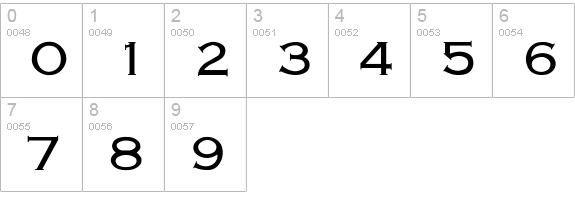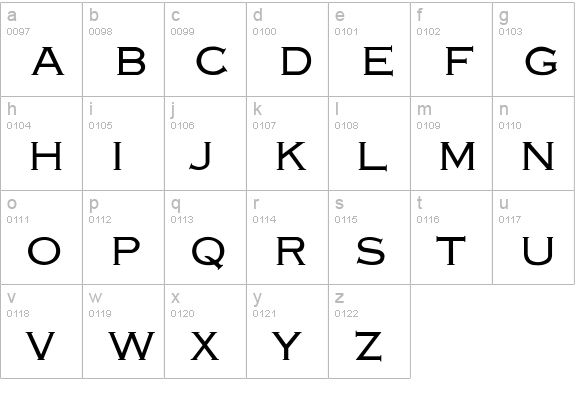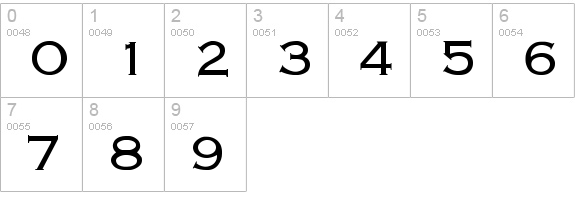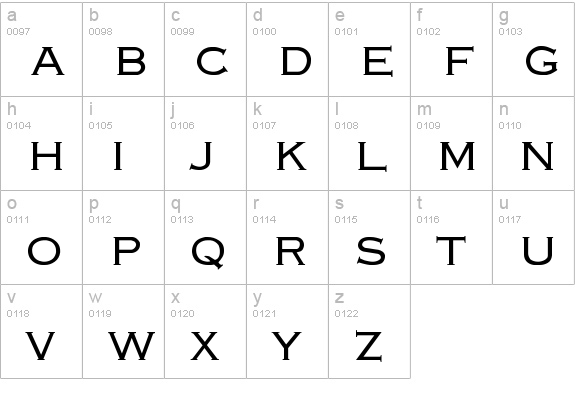
Engraver-Light Font Details
Engraver-Light is a refined, elegant variant in the Engraver typeface family \xE2\x80\x94 well suited to elegant body text, refined sub-headings, and luxury branding.
Engraver-Light font is a sleek and elegant typeface that exudes sophistication and class. With its delicate lines and refined curves, this font is perfect for projects that require a touch of elegance. The Engraver-Light font is a versatile choice for a wide range of design applications, from invitations to branding to editorial design. Best of all, Engraver-Light font is available for free download at FontsMarket.com. This means you can easily incorporate this stunning typeface into your projects without any cost. Don't miss out on the opportunity to enhance your designs with the timeless beauty of Engraver-Light font – download it for free today!